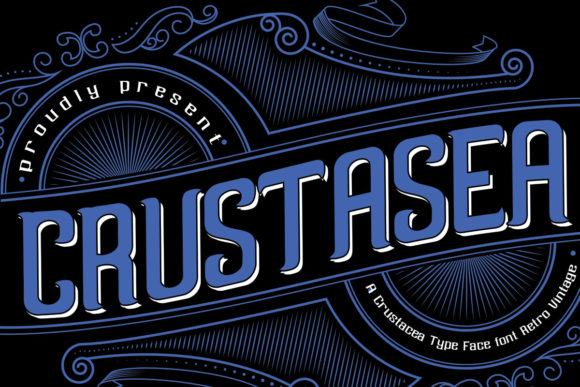
Unleash the Power of Boldness and Authority with Crustasea Font: Your Gateway to Unforgettable Designs
In a world saturated with digital monotony, make your designs stand out with the captivating presence of Crustasea Font, an old slab serif font reborn with a modern twist. Asbakwaled, the visionary behind this masterpiece, has meticulously crafted each glyph to exude a retro charm while embodying a contemporary edge.
Crustasea Font: A Timeless Legacy in a Digital Age
Embrace the allure of a font that effortlessly transcends time. Crustasea Font seamlessly blends the charm of yesteryear with the vibrancy of today, ensuring your designs radiate a timeless elegance that captivates audiences across generations.
Bold and Authoritative: Make a Statement with Every Character
With Crustasea Font, your designs will command attention and inspire awe. Its bold strokes and authoritative presence make every word a statement, demanding attention and leaving an indelible mark on the minds of your audience.
Clarity and Readability: Ensuring Seamless Communication
While boldness and authority take center stage, Crustasea Font never compromises on clarity and readability. Its carefully balanced proportions and distinct letterforms ensure effortless readability, even in the most intricate designs. Communicate your message with precision and impact, leaving no room for misinterpretation.
Versatility Unleashed: A Font for All Occasions
From elegant logos and striking headlines to captivating posters and enthralling social media graphics, Crustasea Font adapts seamlessly to your creative vision. Its versatility knows no bounds, making it the perfect choice for a diverse range of design projects.
Mini LED Displays: A Perfect Match for Modern Elegance
In the realm of mini LED displays, Crustasea Font shines as the ultimate companion. Its crisp lines and sharp angles render flawlessly on these cutting-edge displays, delivering an unparalleled visual experience that captivates and engages audiences in a whole new dimension.